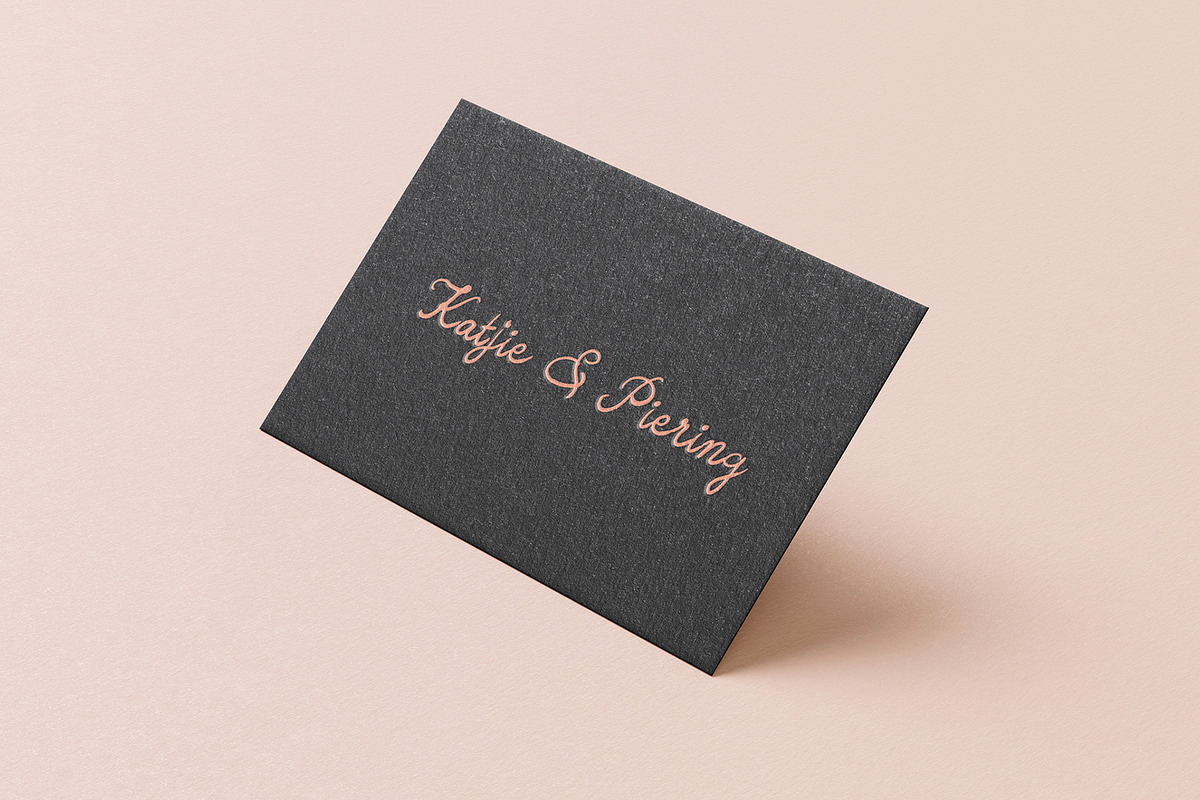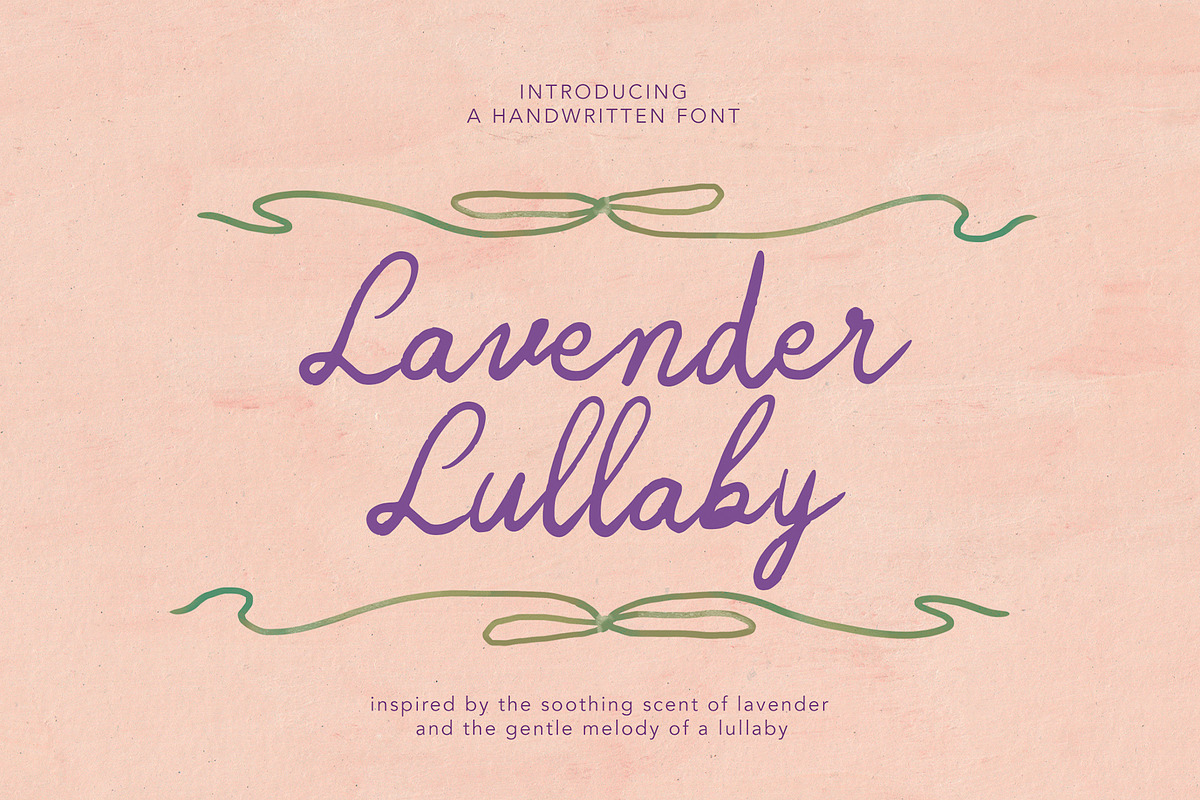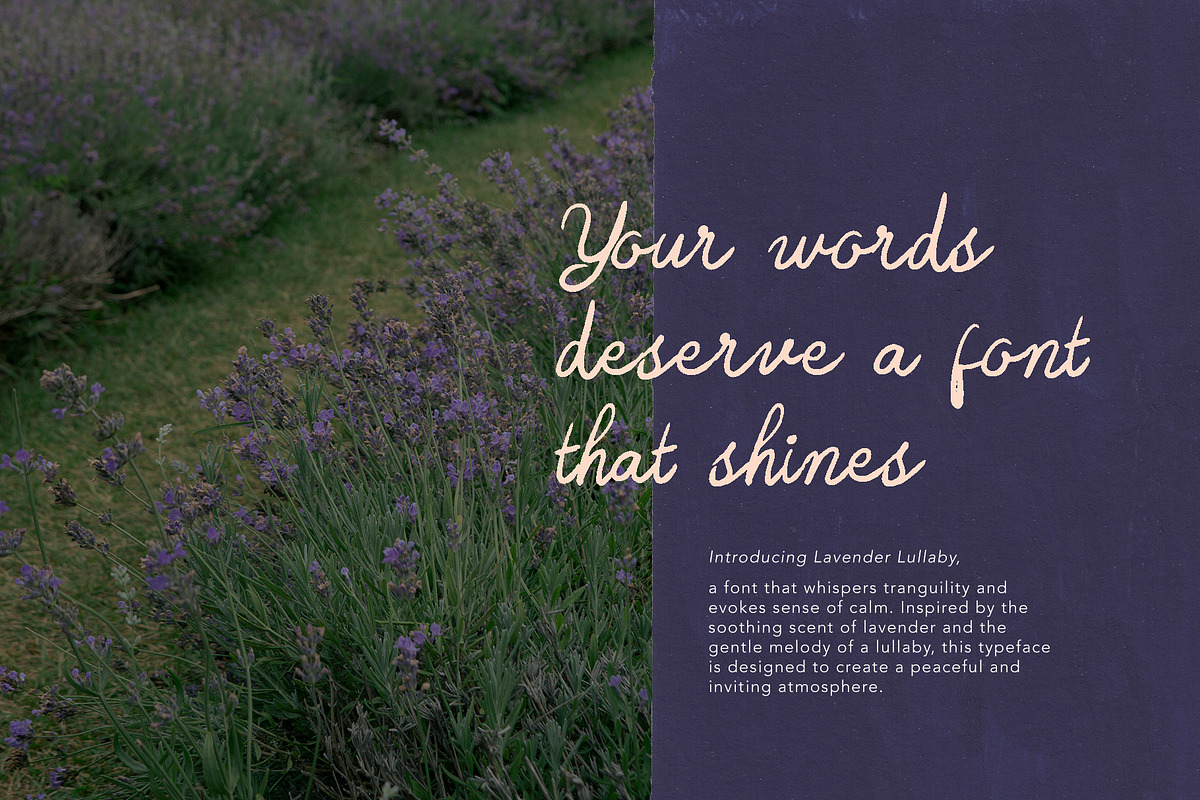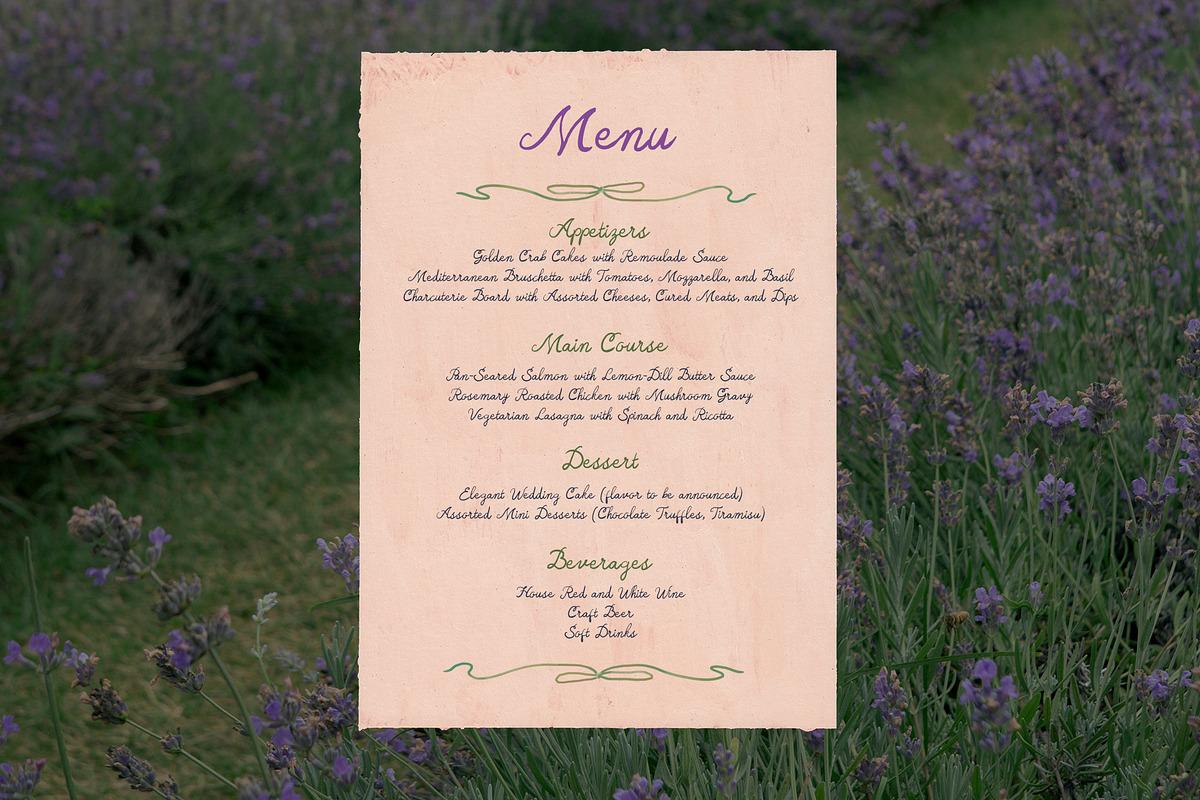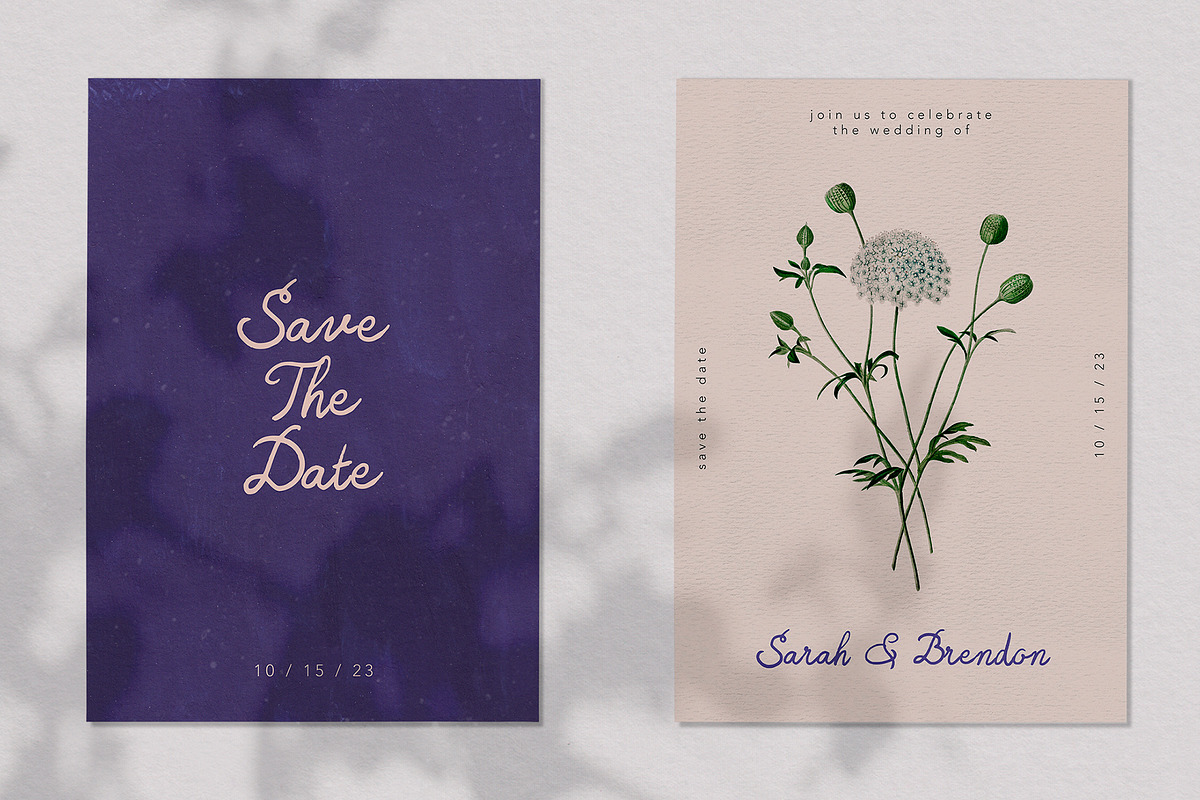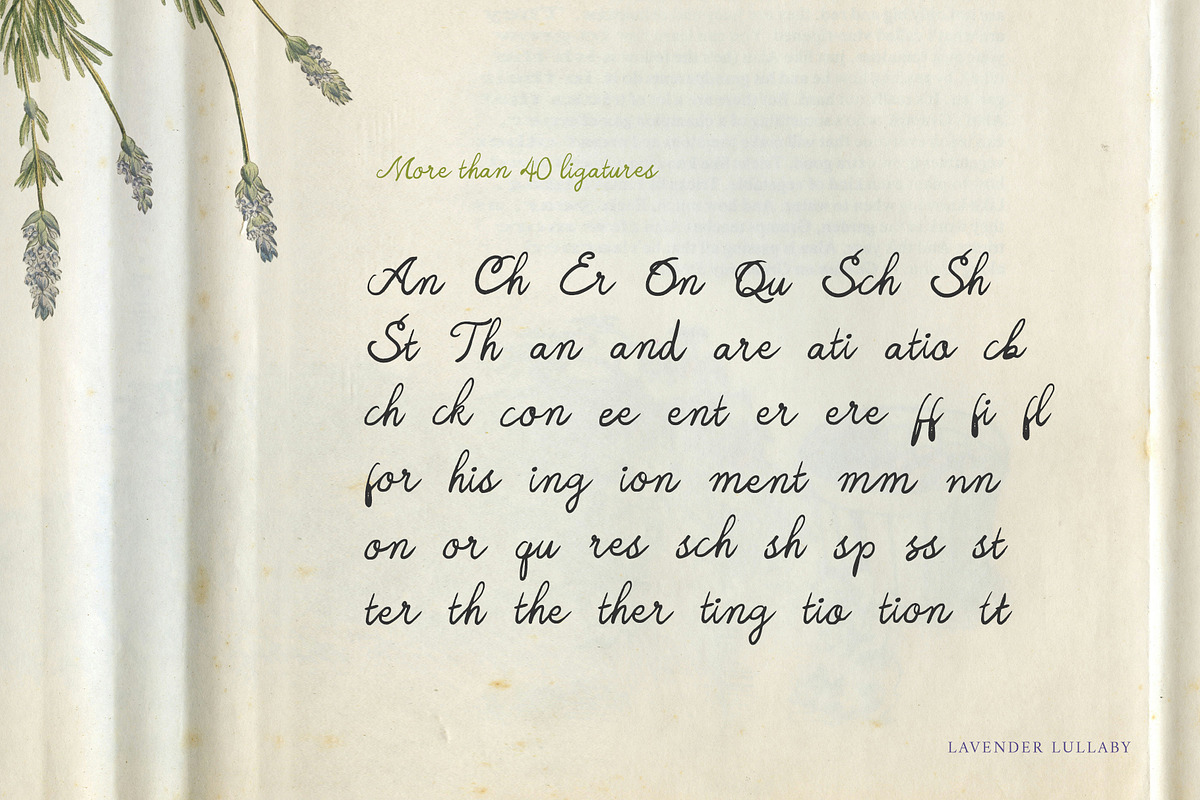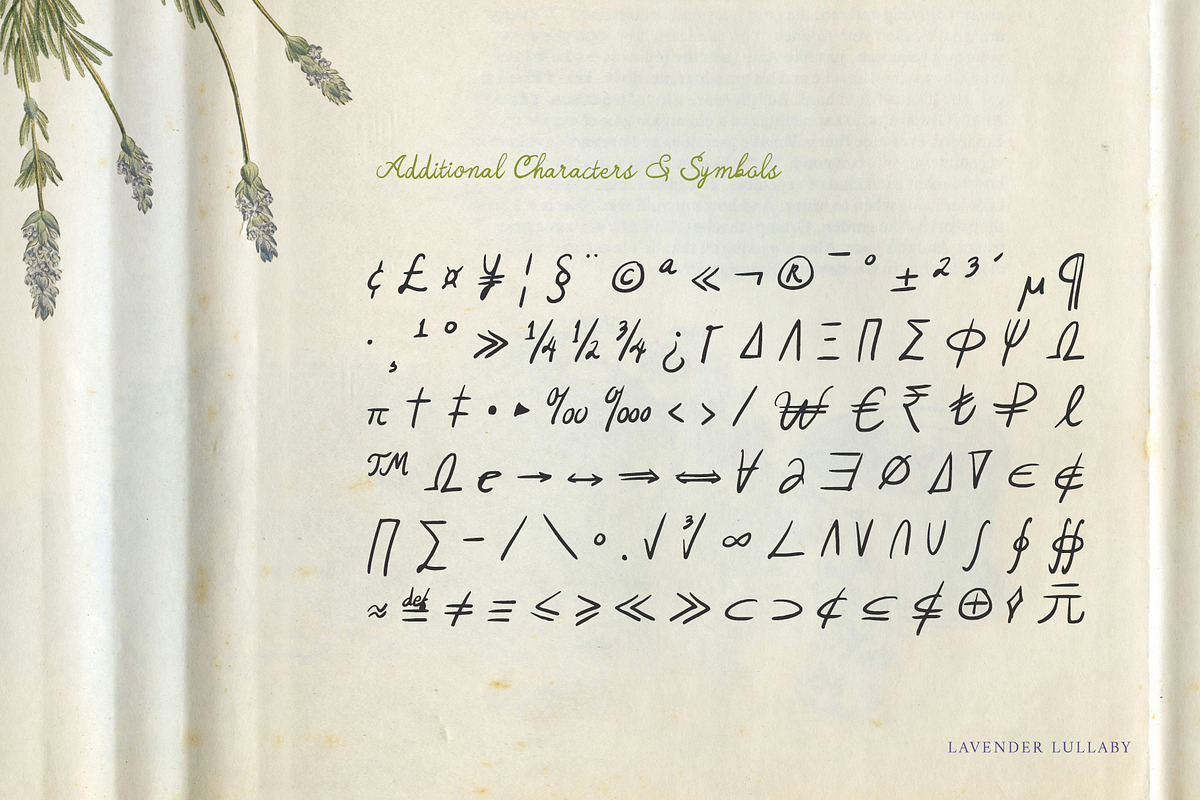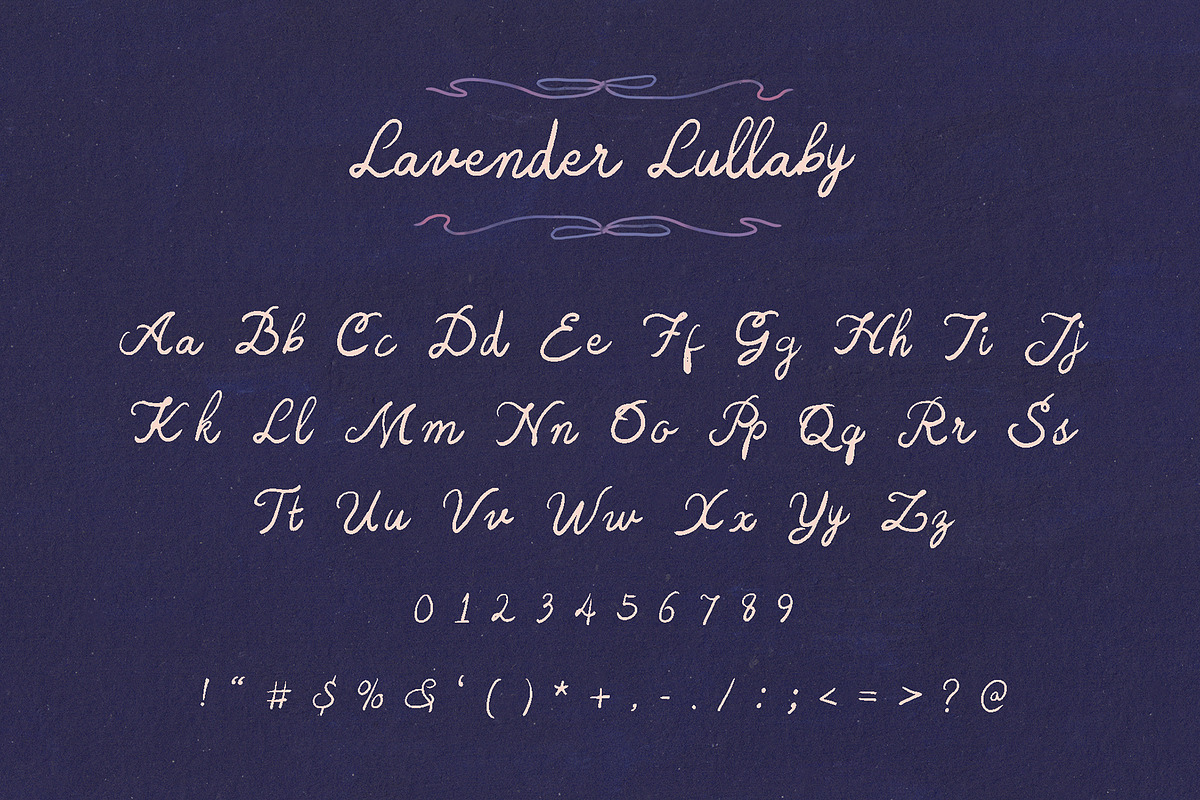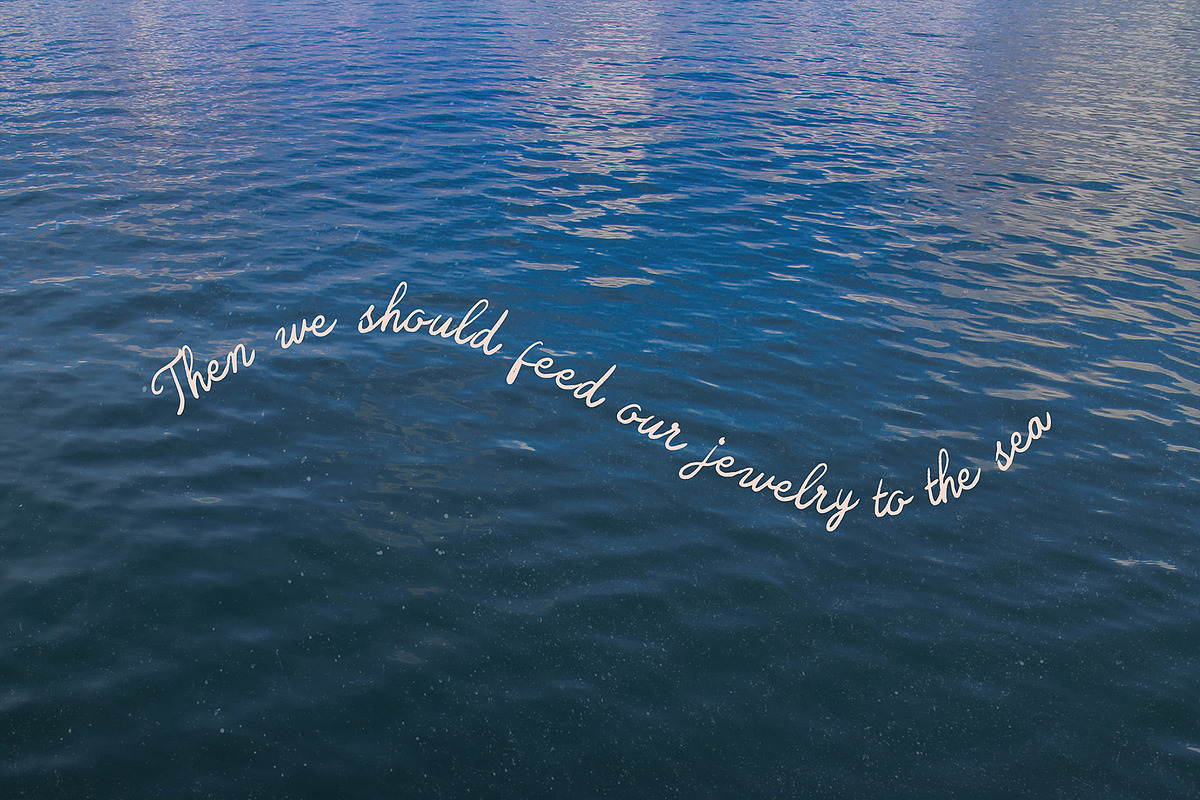
Lavender Lullaby Handwritten Font
Introducing Lavender Lullaby, a font that whispers tranquility and evokes a sense of calm. Inspired by the soothing scent of lavender and the gentle melody of a lullaby, this typeface is designed to create a peaceful and inviting atmosphere.
Lavender Lullaby Font is packed with everything you need, including uppercase and lowercase letters, numbers, and punctuation. Multilingual support.